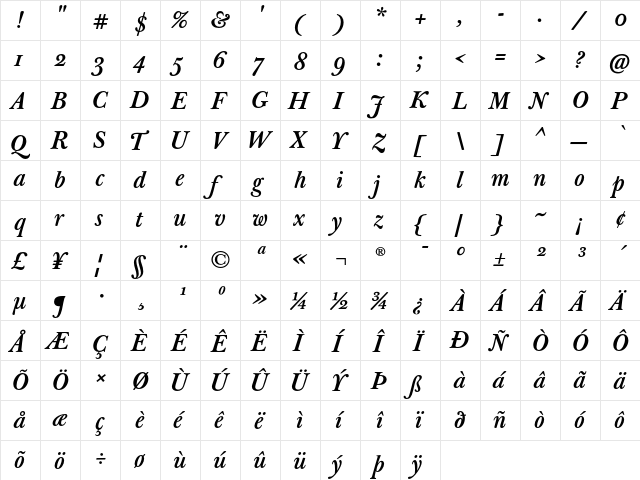
J Baskerville T Med Italic
Design Context for J Baskerville T Med Typeface
J Baskerville T Med offers clean, dependable letterforms without strong stylistic allegiance, making it a practical choice for designers who need flexibility. The dynamic lean of this cut emphasises speed and emphasis in any layout.
Pro Tip: Try J Baskerville T Med for annotation and caption copy alongside an upright companion — the contrast in angle creates a dynamic but ordered typographic system.